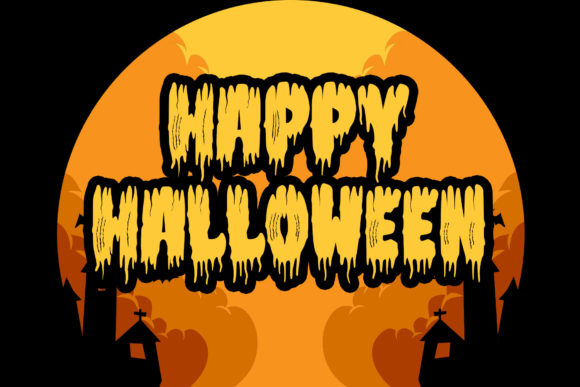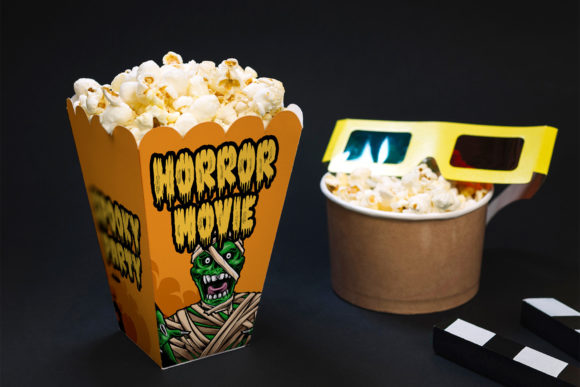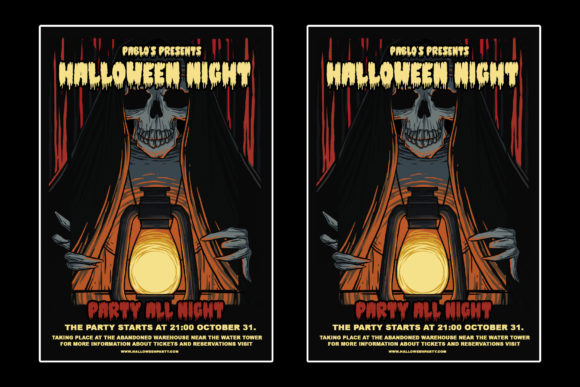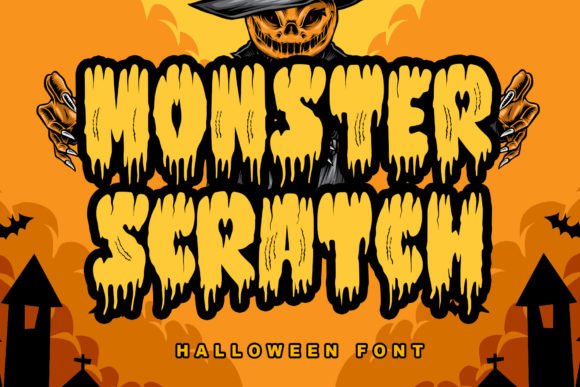
Introduction to Monster Scratch Font
Monster Scratch is a spooky, dramatic and thick lettered display font.
Key Features of Monster Scratch Font
Why Choose Monster Scratch Font?